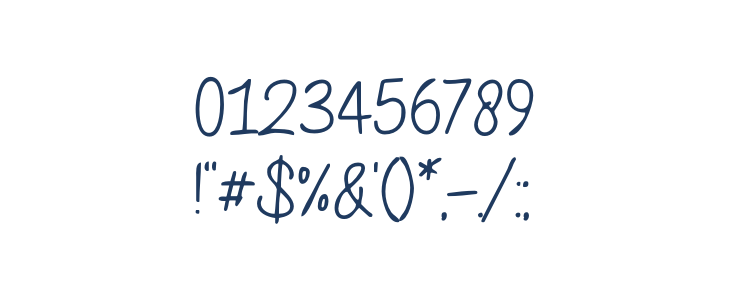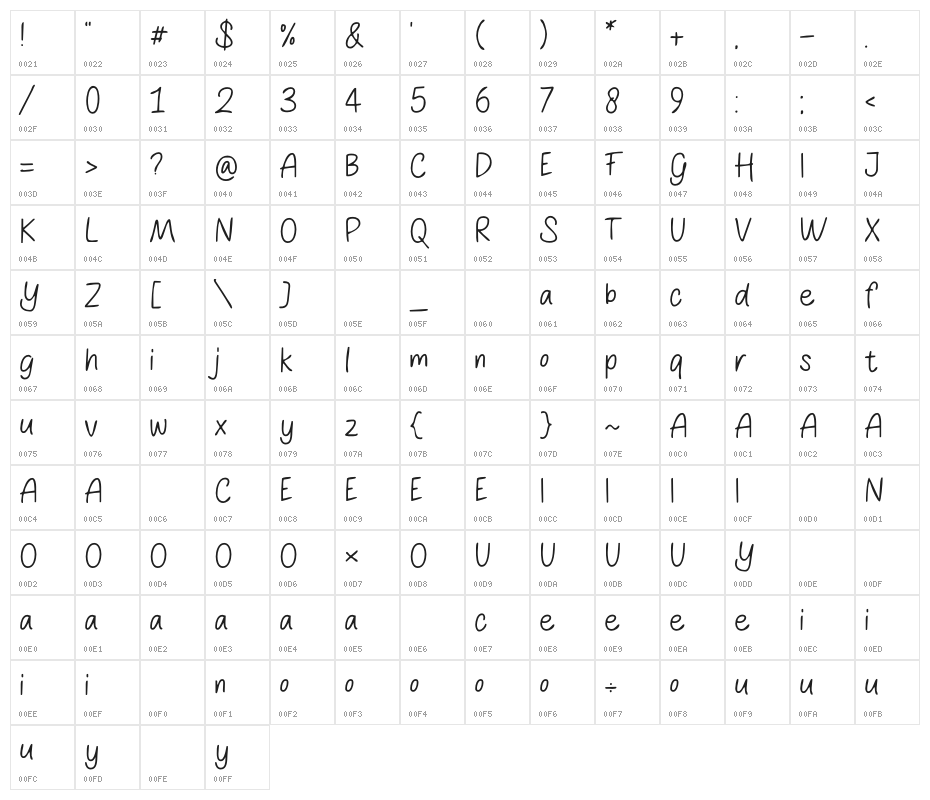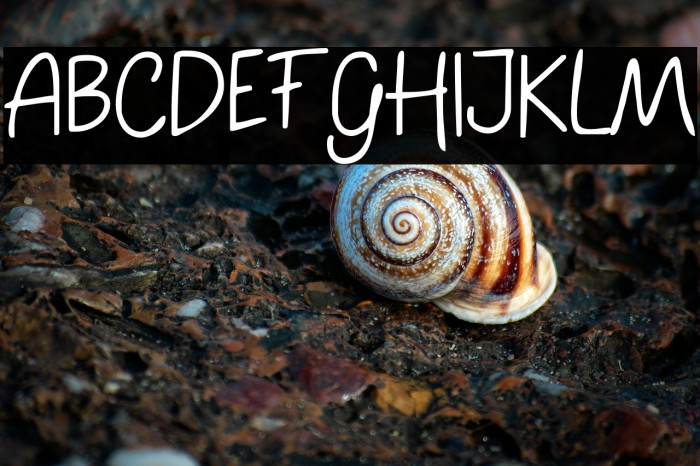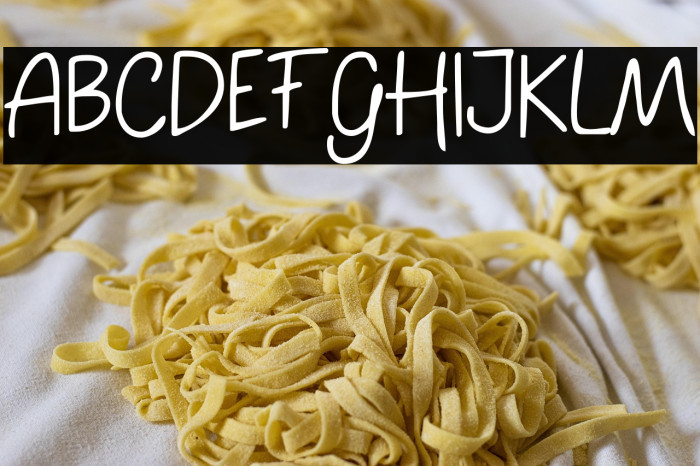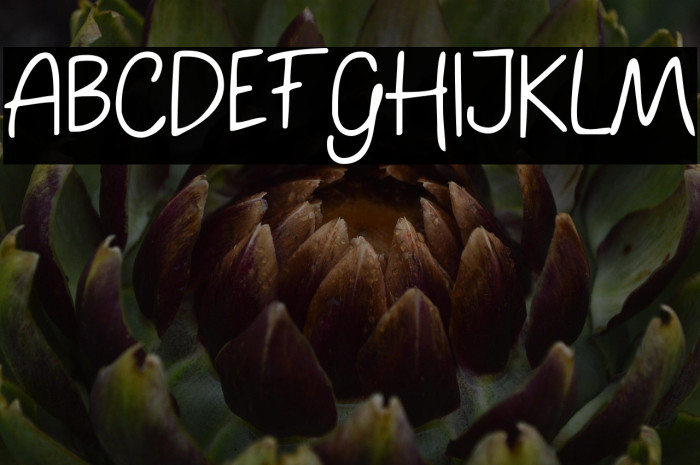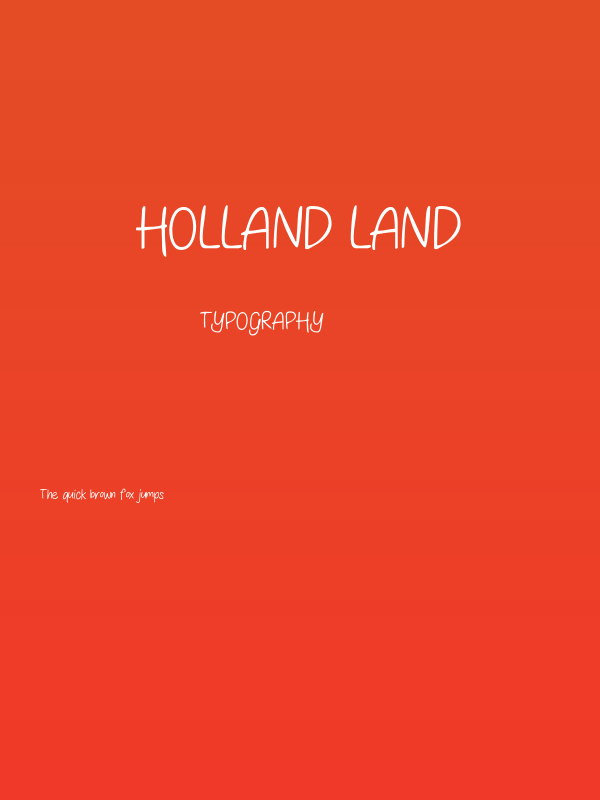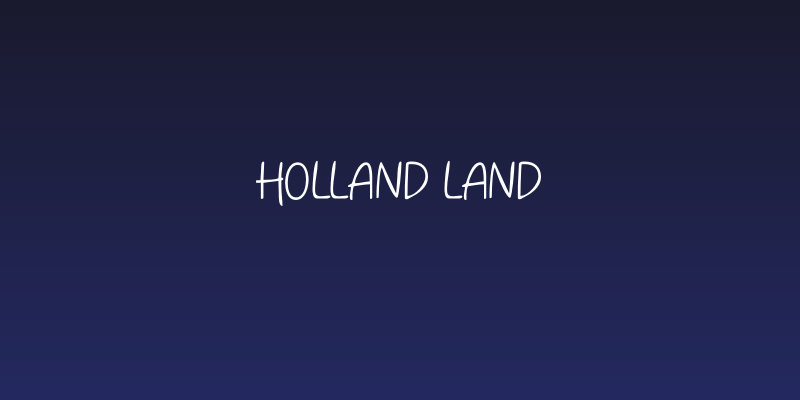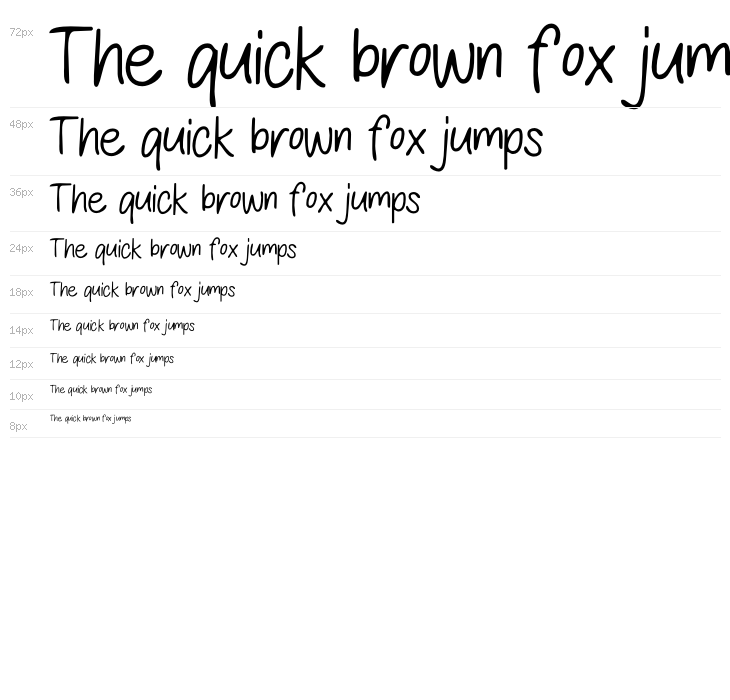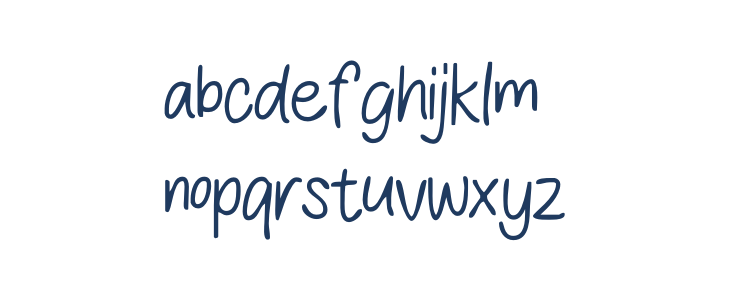
Holland Land Font
Holland Land Description
This font features a playful and casual handwritten style, characterized by its smooth, flowing lines and slightly irregular shapes. The uppercase letters are tall and slender, while the lowercase letters maintain a consistent height, adding to the font's approachable and friendly appearance. The numerals are clear and easy to read, matching the overall aesthetic of the letters. Special characters are well-integrated, maintaining the font's cohesive look. The font's informal nature makes it suitable for projects that require a personal touch or a relaxed vibe.